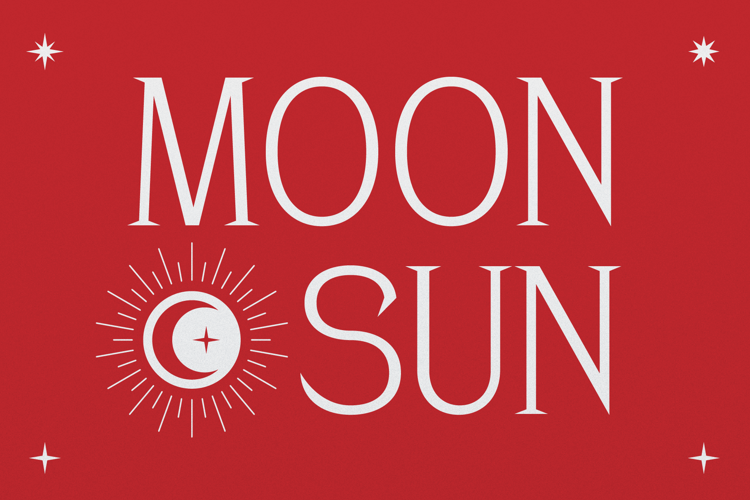
Merasica Klaus Font
Merasica Klaus | Display Serif, is suitable for any projects such as: logos, branding projects, homeware designs, product packaging, mugs, quotes, posters, shopping bags, t-shirts, book covers, name card, invitation cards, greeting cards, label, photography, watermark, special events, and all your other lovely projects that need a Serif Font taste.